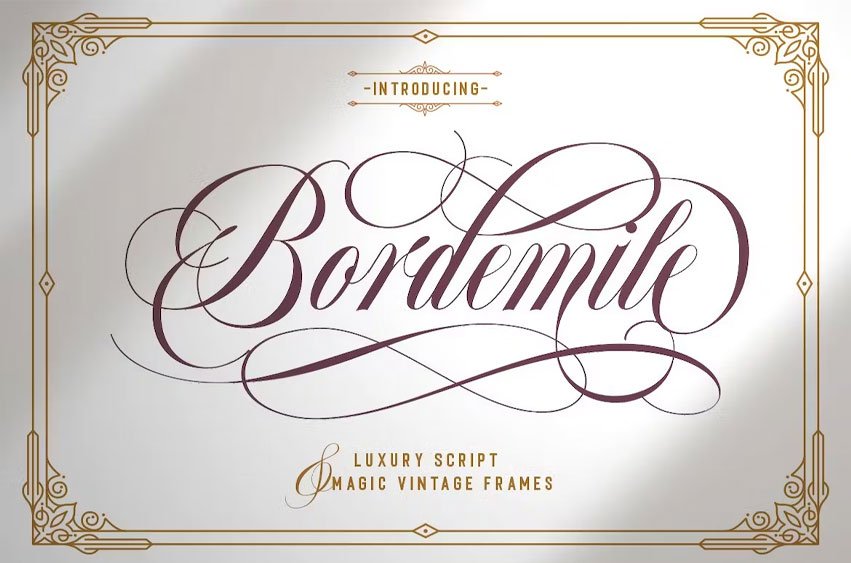
Bordemile Font This typeface works perfect for you who needs a typeface for headline, logotype, apparel, invitation, branding, packaging, advertising etc.
uppercase & lowercase numbers and punctuation multilingual ligatures alternates swashes PUA encoded classic frame in vector format